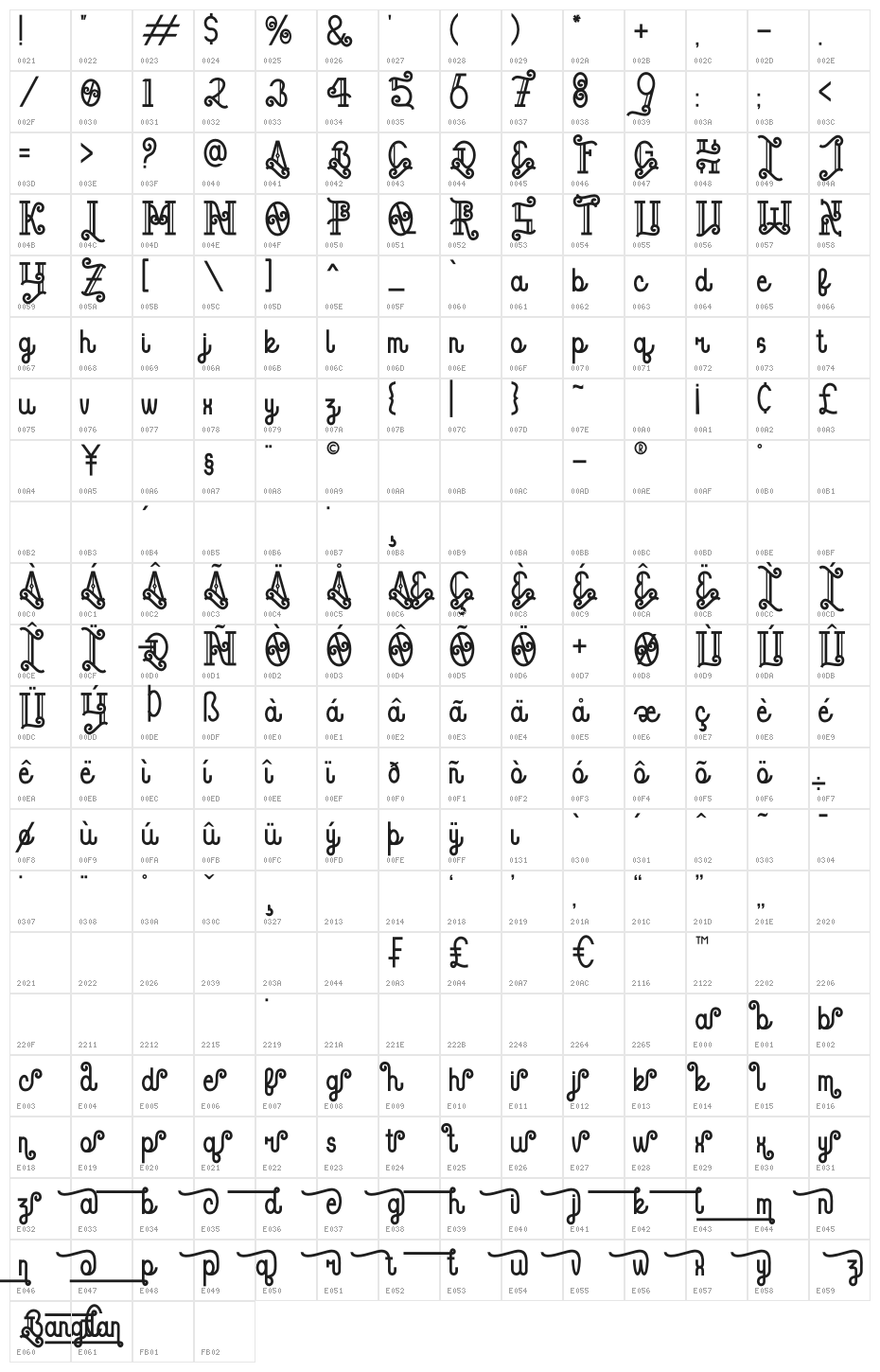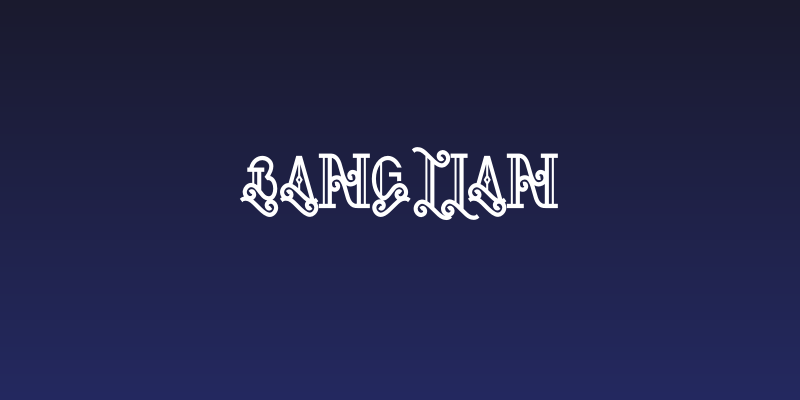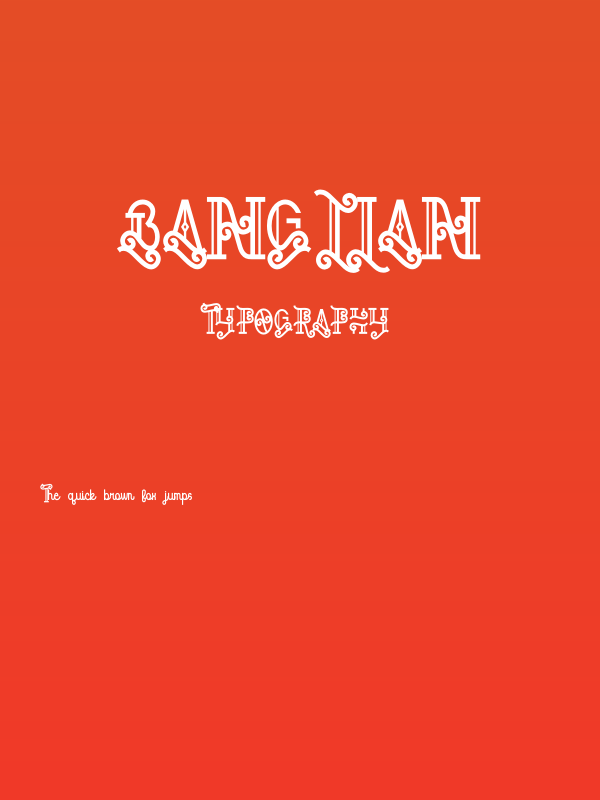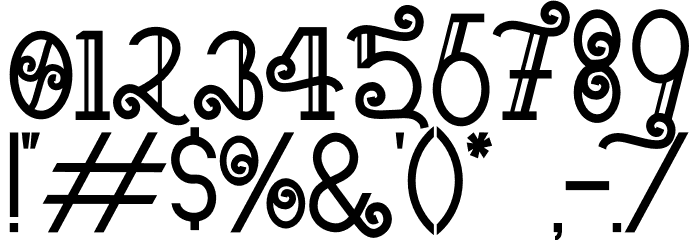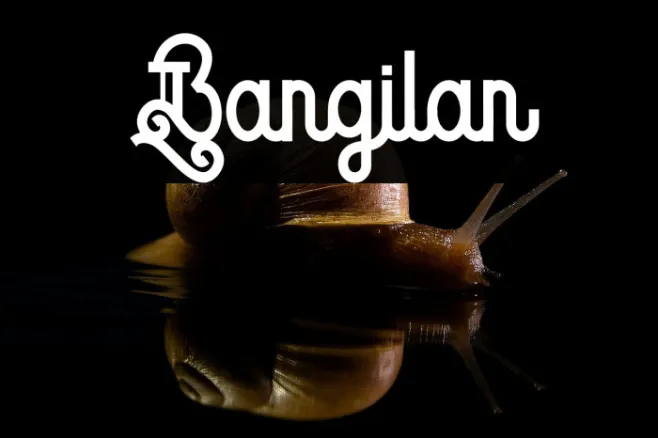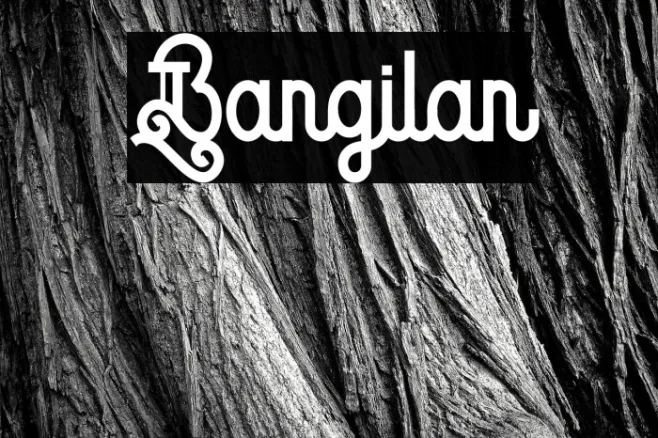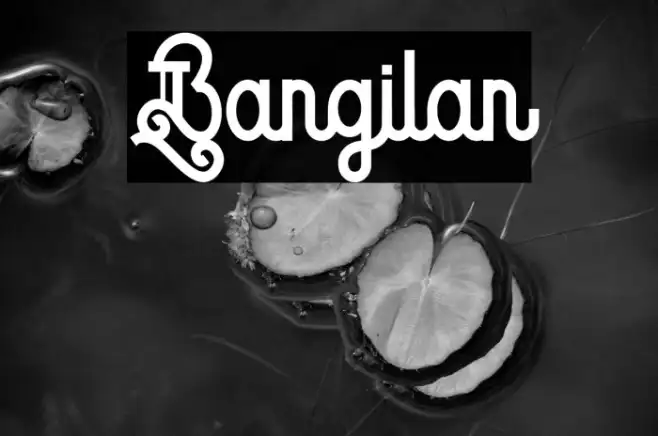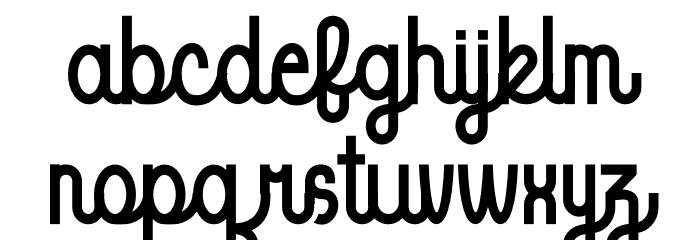
Bangilan Font
Bangilan Description
This font features a highly decorative and artistic style, characterized by intricate swirls and flourishes that embellish each letter. The uppercase letters are particularly ornate, with elaborate loops and curls that give them a whimsical and playful appearance. The lowercase letters maintain a more straightforward design, yet still incorporate subtle curves and embellishments that add to the overall aesthetic. The numbers and special characters follow the same decorative theme, ensuring a cohesive look across all characters. This font is ideal for projects that require a touch of elegance and creativity, such as invitations, posters, or branding materials.
| Use Case | Headlines, Logos, Artistic designs |
| Proposed Projects | Invitations, posters, branding materials, artistic designs. |